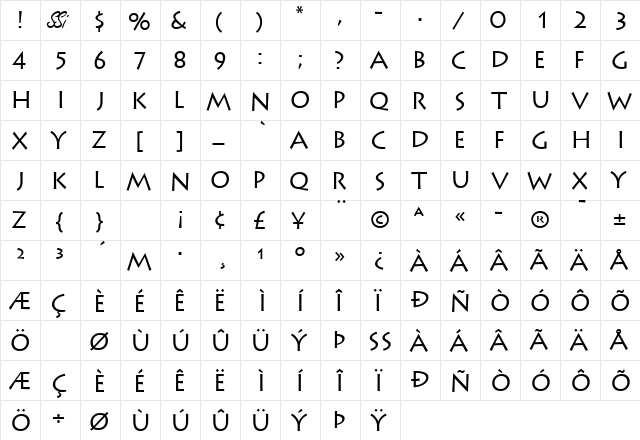
AustereCapsSSK Regular Font Preview
AustereCapsSSK Regular
AustereCapsSSK Regular Font Details
Design Context for AustereCapsSSK Typeface
AustereCapsSSK is a composed and adaptable typeface that performs quietly and consistently across a wide range of design contexts.